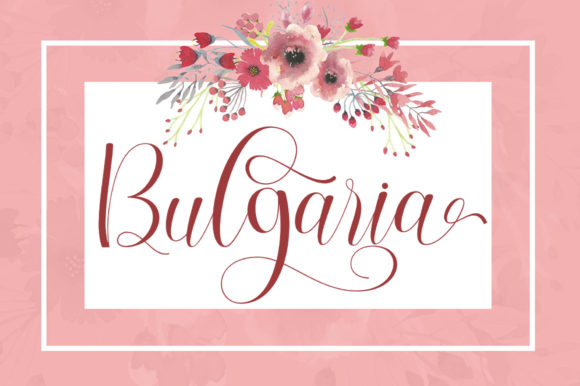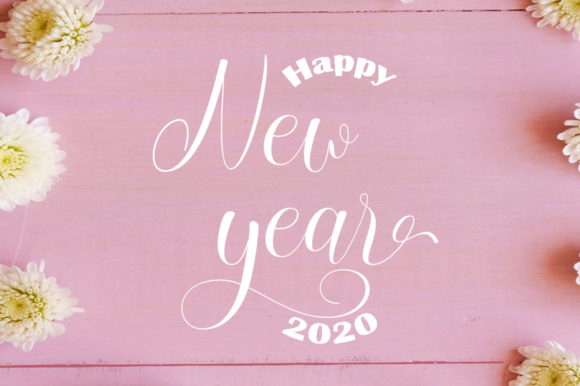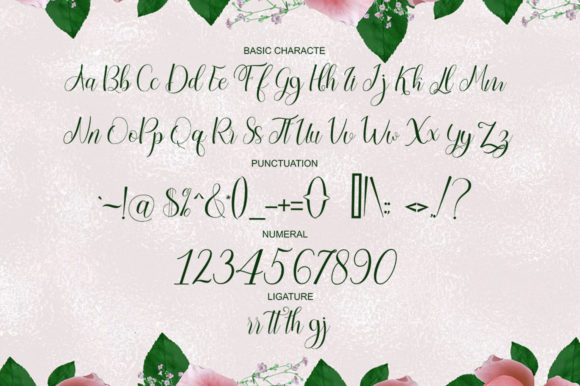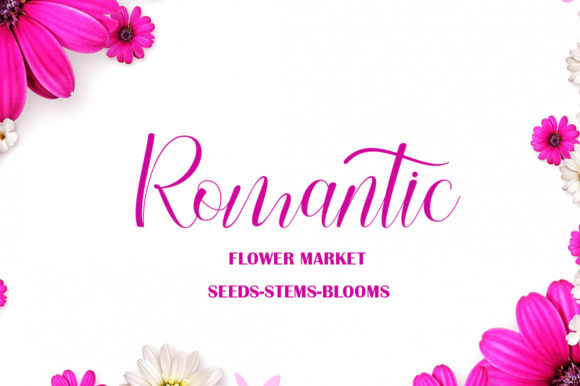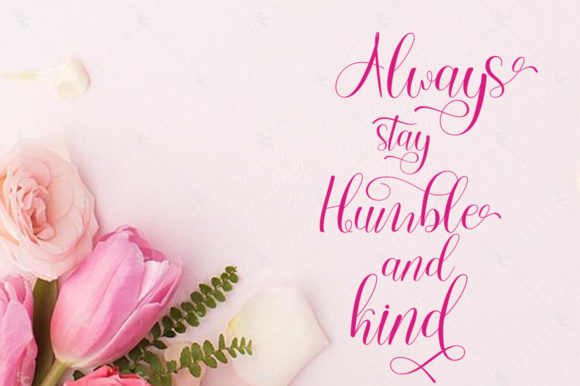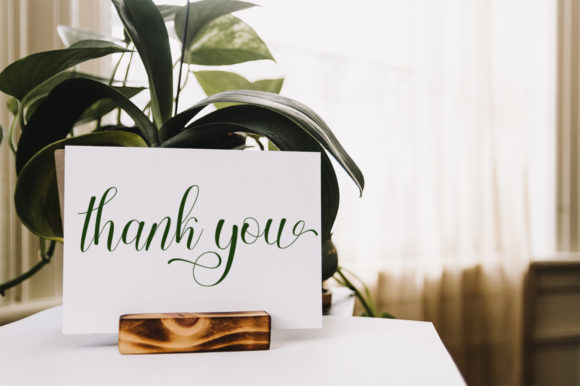
Casandrela Font: Elevate Your Designs with Elegance and Sophistication
Are you searching for a font that exudes sophistication and authenticity? Look no further than Casandrela, a stunning handwritten font that is sure to capture your heart. With its unique and elegant feel, Casandrela is perfect for creating a wide range of designs, from wedding invitations and stationery to social media posts and greeting cards.
The Charm of Casandrela
Casandrela is more than just a font – it’s an experience. Its authentic feel is reminiscent of handwritten scripts from a bygone era, evoking a sense of nostalgia and romance. The font’s sophisticated and refined aesthetic makes it ideal for designs that require a touch of elegance and poise. Whether you’re a designer, crafter, or DIY enthusiast, Casandrela is sure to inspire your creativity.
With Casandrela, the design possibilities are endless. Use it to create:
- Beautiful wedding invitations that set the tone for a fairytale-like celebration
- Elegant stationery art that adds a touch of sophistication to any room
- Eye-catching social media posts that grab attention and inspire engagement
- Cute greeting cards that convey your thoughts and feelings in a unique and personal way
One of the standout features of Casandrela is its PUA (Private Use Area) encoding. This means that you can access all of the font’s cute glyphs and swashes with ease, giving you greater flexibility and creative control over your designs. No more tedious searching for the perfect symbol or embellishment – with Casandrela, it’s all at your fingertips.
Special Features to Elevate Your Designs
Casandrela is more than just a font – it’s a comprehensive design tool. In addition to its PUA encoding, it features a wealth of special features, including:
- Alternate glyphs: add variety and interest to your designs with multiple glyph options
- Ligatures: create beautiful, flowing connections between letters and words
Why Choose Casandrela?
So why choose Casandrela over other fonts? Here are just a few reasons:
- Unique and authentic feel: stands out from the crowd
- Sophisticated and elegant aesthetic: perfect for high-end designs
- PUA encoding: easy access to glyphs and swashes
- Special features: alternate glyphs and ligatures for added creativity
Get Creative with Casandrela
Ready to fall in love with Casandrela? Whether you’re a seasoned designer or a crafty DIY enthusiast, this stunning handwritten font is sure to inspire your creativity. With its sophisticated feel and endless design possibilities, Casandrela is the perfect addition to your font collection.
In conclusion, Casandrela is a must-have font for anyone looking to elevate their designs with elegance and sophistication. Its unique and authentic feel, combined with its PUA encoding and special features, make it the perfect choice for a wide range of design projects. So why wait? Fall in love with Casandrela today and discover a world of creative possibilities!